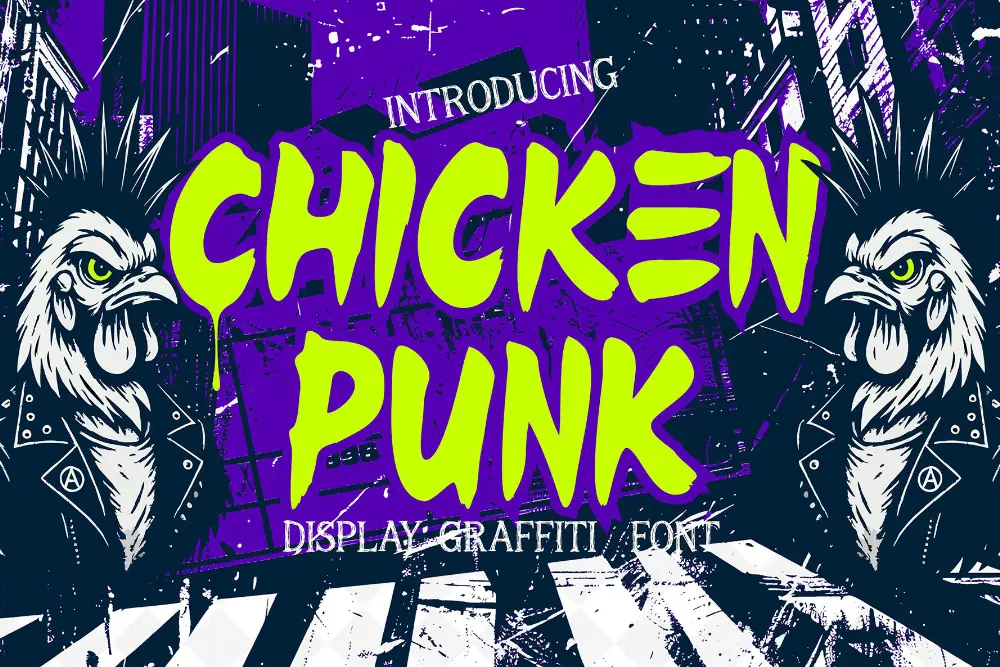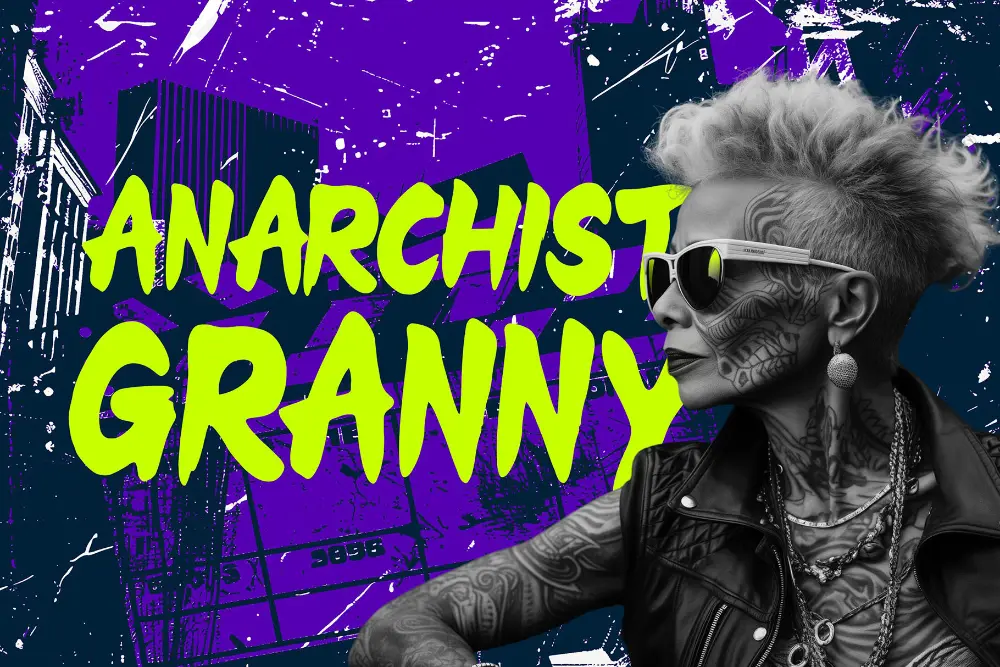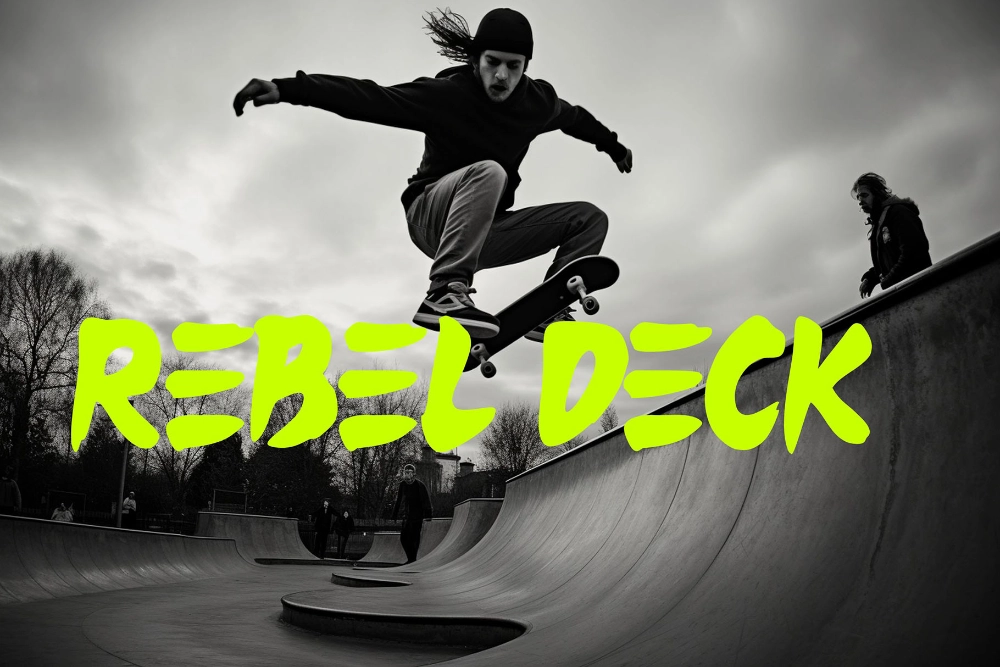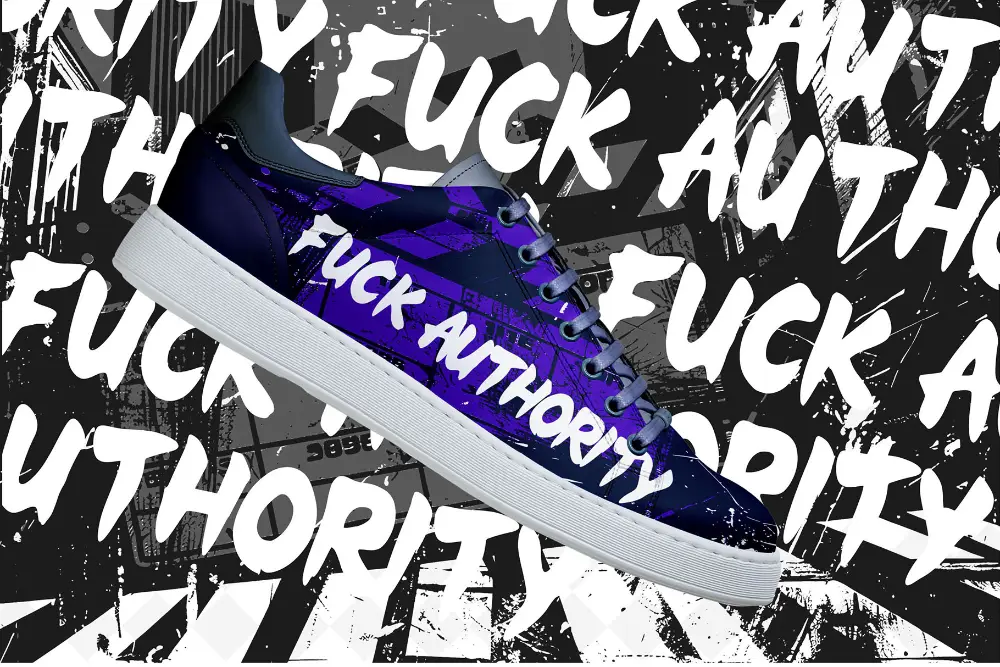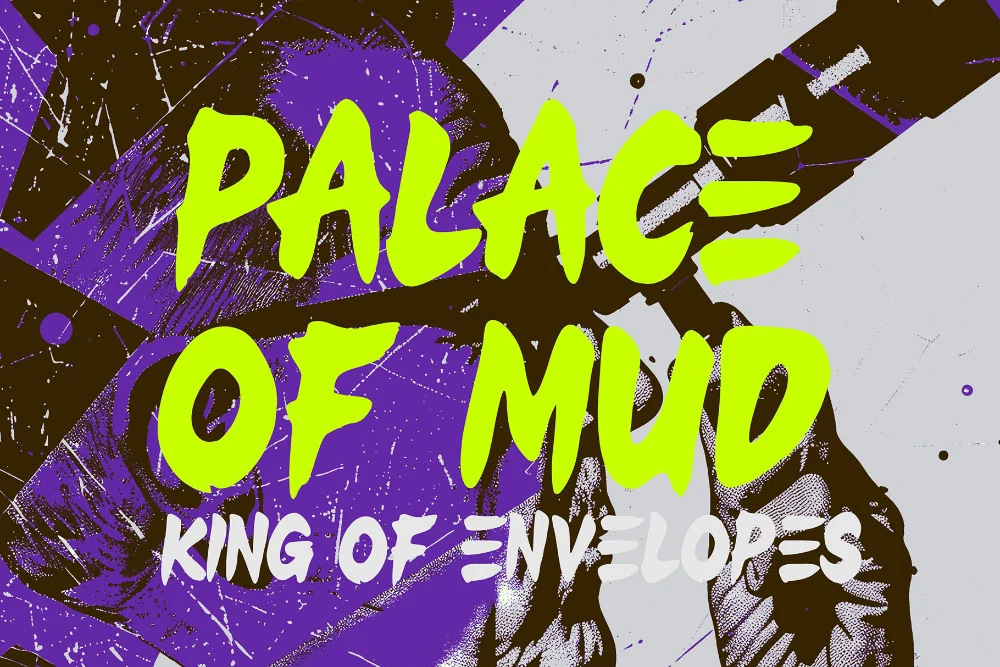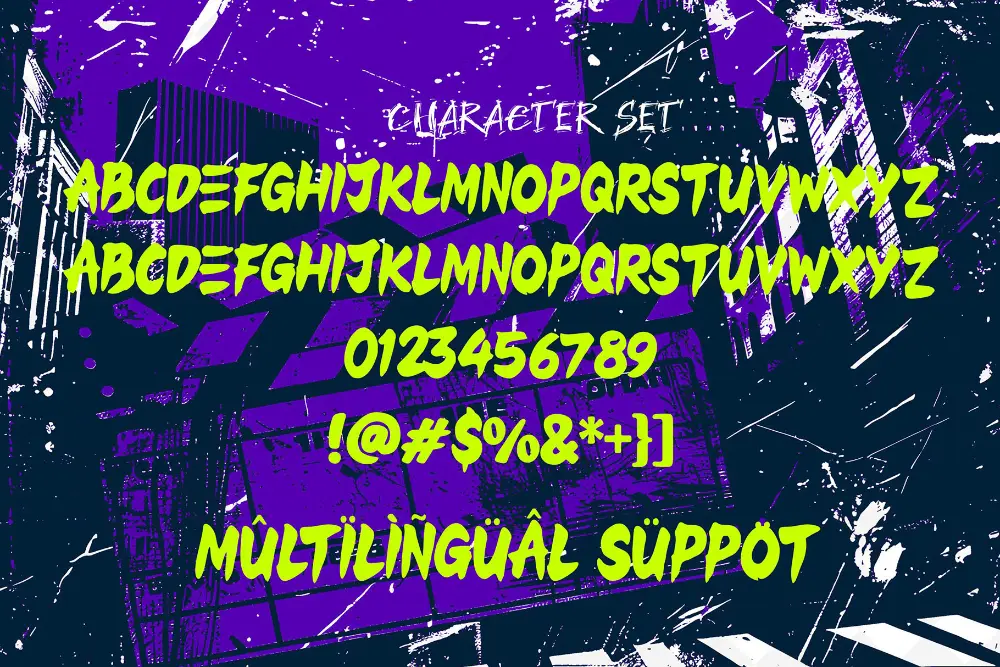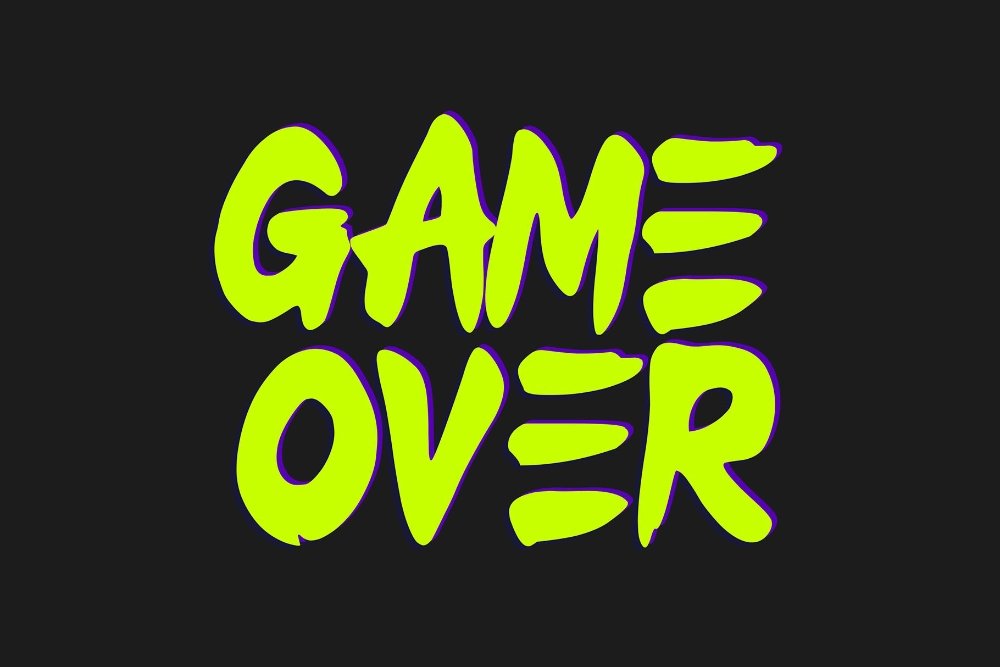
Turn up the volume of your design game with Chicken Punk – Bold and Street Style Graffiti Font, a raw and fearless typeface designed by Cikareotype Studio. Inspired by the loud attitude of street culture, skate scenes, and underground punk aesthetics, Chicken Punk delivers a perfect blend of graffiti energy, bold letterforms, and authentic handstyle rhythm.
This bold graffiti font captures the rebellious essence of the city—vibrant walls, noisy subways, and the pulse of youth rebellion. With uppercase characters, multilingual support, and complete OTF, TTF, WOFF formats, Chicken Punk is ready to explode across your streetwear branding, album covers, posters, merch, and social media designs.
If you want typography that screams personality, Chicken Punk is the boldest choice in the graffiti font universe.
Graffiti Font Meets Punk Energy
Chicken Punk isn’t just about street graffiti—it’s about the attitude behind it. The thick, heavy strokes and wild shapes bring urban punk energy to every project. Each letter feels like it was tagged on a wall in one bold motion, reflecting pure hand-drawn freedom.
Unlike overly polished display fonts, Chicken Punk keeps things raw and organic, embracing the imperfections that make graffiti art real. This font is a tribute to DIY punk culture and street expression, giving designers a tool that’s both edgy and usable.
It’s perfect for projects that demand attention—street posters, event flyers, band logos, skateboard graphics, or merchandise designs that need attitude.
Why Chicken Punk Rules the Urban Typography Scene
In a world of minimalist fonts, bold graffiti fonts like Chicken Punk bring back emotion and rebellion. Its design is packed with graffiti authenticity—thick outlines, uneven curves, and street-inspired angles that mimic the natural movement of spray paint.
Each glyph feels like it was crafted in a single confident stroke. The result? Typography that looks alive, expressive, and ready to shout your message to the world.
Use it to design:
Streetwear and Fashion Logos – Tag-style branding that makes apparel pop.
Music Covers & Festival Posters – Give your visuals that underground edge.
Merchandise Designs – Stickers, bags, mugs, and prints that carry attitude.
YouTube & Social Media Graphics – Bold typography that stands out instantly.
Event Promotion – Flyers and signage for punk shows or street art exhibitions.
Every letter of Chicken Punk translates your creative vision into something gritty, loud, and authentic.
✅ Bold and Thick Letterforms – Inspired by real graffiti and punk art.
✅ Uppercase Characters – Strong and clear for high-impact visuals.
✅ Multilingual Support – Perfect for global branding and diverse audiences.
✅ Street-Inspired Design – True to graffiti culture and underground expression.
✅ Optimized for Digital & Print – Smooth rendering in any environment.
✅ Easy to Customize – Add outlines, shadows, or color layers effortlessly.
✅ Perfect for Streetwear, Posters, and Brand Logos.
Why Designers Love Chicken Punk
Designers from around the world love Chicken Punk because it embodies street authenticity and creative freedom. It’s wild, expressive, and unapologetic—just like the subcultures that inspired it.
Here’s why it’s a favorite among urban designers:
Unfiltered Energy: Each glyph is alive with motion and attitude.
Urban Versatility: Works across streetwear, music, gaming, and youth branding.
-
Readable Graffiti: Maintains clarity even with rough edges and bold strokes.
-
Pairing Power: Combine with Death Subway for dripping, layered graffiti compositions.
-
Trend Alignment: Perfect for modern street graphics and social media aesthetics.
Chicken Punk captures that punk rebellion meets street art realism, delivering the perfect mix of chaos and control.
Streetwear and Punk Aesthetic in Design
The fashion world has fully embraced graffiti and punk influence—bold fonts are everywhere from T-shirt graphics to high-end collaborations. Chicken Punk Graffiti Font fits right into this movement.
Its bold structure makes it a great base for adding textures, spray effects, and 3D shadows, while its natural letter spacing keeps compositions balanced. Whether you’re designing for an indie brand or a large-scale campaign, Chicken Punk helps you express confidence and urban edge effortlessly.
With uppercase characters, multilingual support, and professional file formats (OTF, TTF, WOFF), Chicken Punk gives you both the power of bold visual impact and the freedom to create authentic street art designs.
From clothing lines to album covers, from murals to digital campaigns, Chicken Punk helps you break rules and build a brand with attitude.
Be loud. Be fearless. Be Chicken Punk.